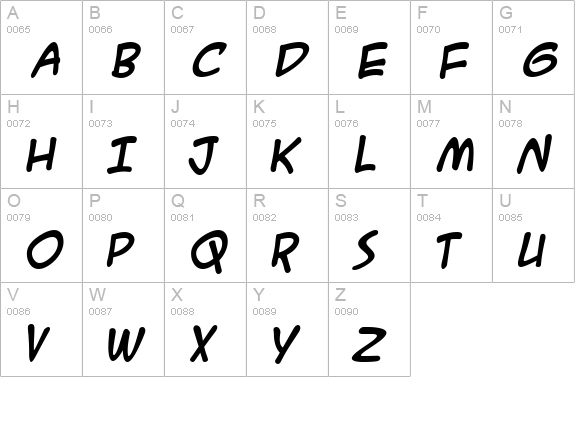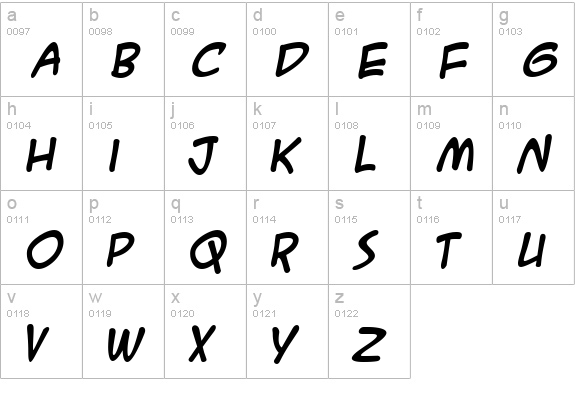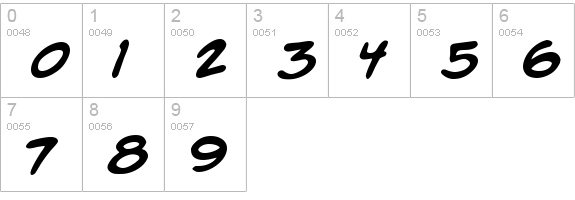
A.C.M.E. Secret Agent Bold Font Details
A.C.M.E. Secret Agent Bold is a strong, high-contrast variant in the A.C.M.E. typeface family \xE2\x80\x94 well suited to headlines, attention-grabbing titles, and strong calls-to-action.
Introducing the A.C.M.E. Secret Agent Bold font - a sleek and stylish typeface designed for those who want to make a bold statement with their text. This font exudes confidence and sophistication, making it perfect for projects that require a touch of espionage and intrigue. The A.C.M.E. Secret Agent Bold font is not only visually striking, but it is also incredibly versatile, making it suitable for a wide range of design applications. Whether you're creating a poster for a top-secret mission or designing a sleek logo for a cutting-edge tech company, this font will help you stand out from the crowd. And the best part? The A.C.M.E. Secret Agent Bold font is available for free download at FontsMarket.com. Now you can add a touch of mystery and excitement to your projects without breaking the bank. Don't miss out on this opportunity to elevate your designs with the A.C.M.E. Secret Agent Bold font today!